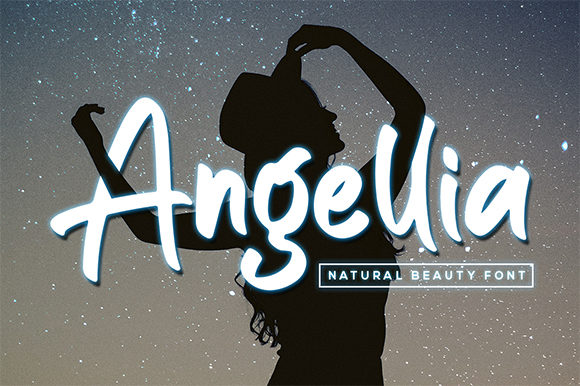
Step into the realm of sophistication and beauty with Angellia Font, a script font that captivates hearts with its refined allure. Bluestype Studio, the creative force behind this masterpiece, has woven magic into each letter, resulting in a font that's both authentic and graceful.
Angellia Font isn't just a collection of characters; it's an art form. Its flowing curves and delicate strokes evoke a sense of charm that's hard to resist. Whether you're designing wedding invitations, creating elegant logos, or crafting heartfelt messages, Angellia Font will add a touch of elegance that leaves a lasting impression.
Experience the beauty of handwritten calligraphy with Angellia Font's organic style. Its carefully crafted letters mimic the natural flow of ink on paper, bringing a personal touch to your designs. Each stroke tells a story, adding depth and emotion to your creations.
Unleash your creativity and explore the endless possibilities of Angellia Font. Experiment with different design styles, from classic and timeless to modern and edgy. Whether you're a seasoned designer or just starting out, Angellia Font will elevate your projects with its versatile charm.
So, embrace the elegance of Angellia Font and embark on a journey of creativity that will leave you spellbound. Let your designs bloom with the beauty of this captivating script font and witness the transformation of your ideas into breathtaking realities.